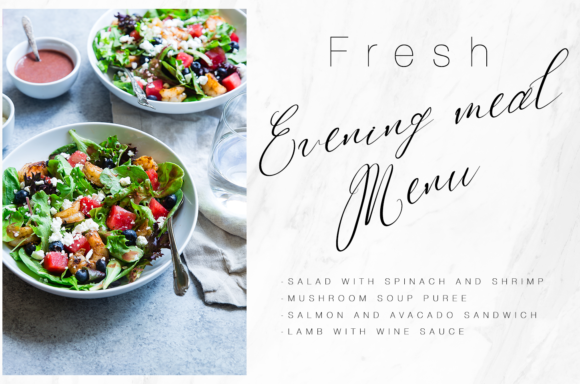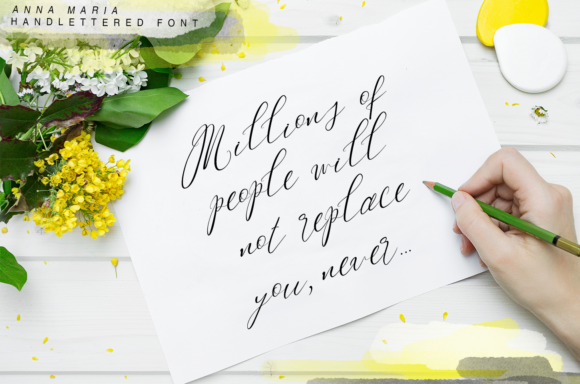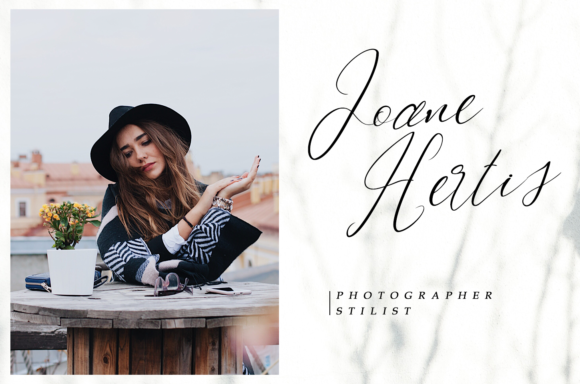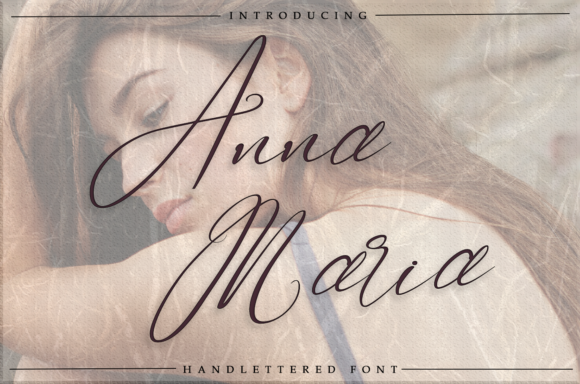
Introduction to Anna Maria Font
Anna Maria feels elegant, romantic and charming.
Ignite your creativity with this gorgeous script .
Key Features of Anna Maria Font
Why Choose Anna Maria Font?
Anna Maria Font offers exceptional quality and versatility, making it a valuable addition to your design toolkit. Whether you’re creating for personal projects or commercial use, Anna Maria Font delivers professional results.